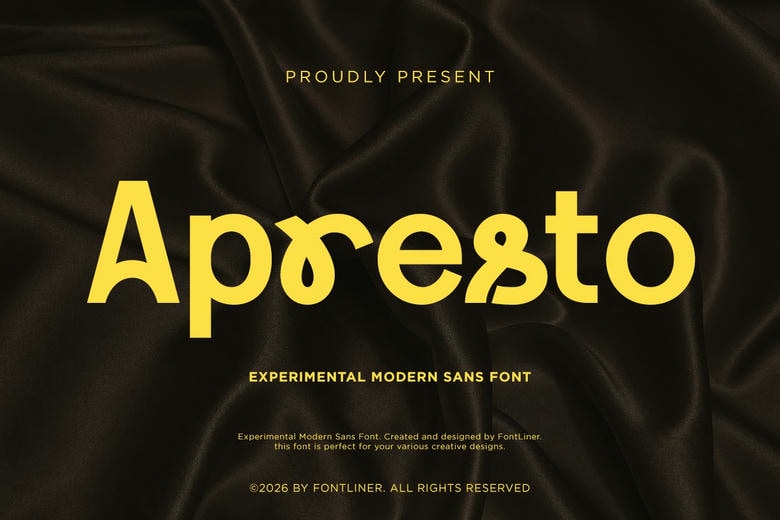
Apresto Font
Apresto is a modern sans-serif font that combines strong geometric shapes with playful rounded touches, giving it a fresh and current look. Its unique letterforms balance creativity and readability, making it a great choice for branding, fashion, headlines, posters, packaging, social media, and other modern design projects.
If you are creating a fashion label, streetwear brand, creative studio, cosmetic packaging, café identity, or a standout marketing campaign, Apresto brings bold style and a modern feel.
Apresto Experimental Modern Sans Serif Font